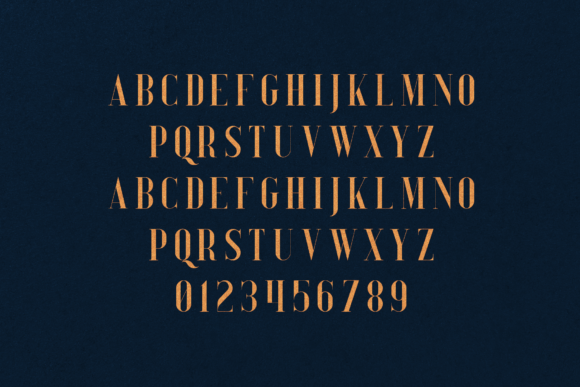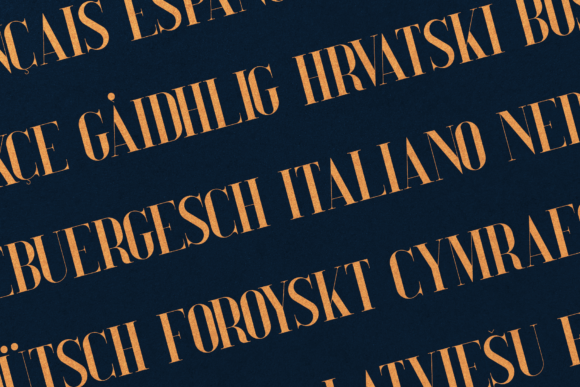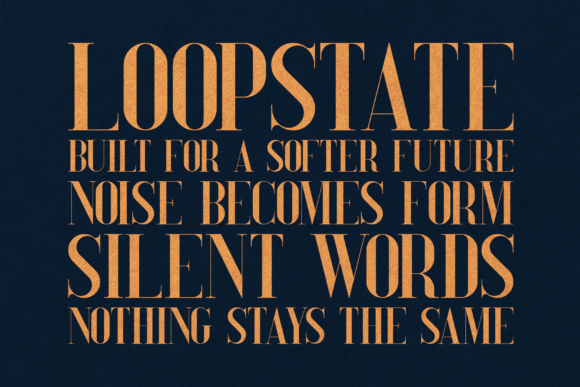
Introduction to Daylight Dreams Font
You’ve spent hours perfecting your design, from selecting the perfect color palette to crafting the ideal layout. But have you ever stopped to think about the one element that can truly elevate your creative project – the font? For designers, the right font can make all the difference between a good design and a great one.
Enter the Daylight Dreams Font, a sophisticated modern serif typeface designed to add elegance, clarity, and sophistication to any design. Whether you’re working on a high-end branding project or a luxury editorial design, this font is sure to impress. With its versatility and high-quality aesthetic, the Daylight Dreams Font is a valuable resource for designers looking to take their creative projects to the next level.
Key Features of Daylight Dreams Font
- High-quality, professional font perfect for creative projects requiring a unique design resource.
- Comes in a single weight, making it easy to use across different design projects.
- Designed with a high resolution of 300 DPI, ensuring crisp and clear typography.
- Perfect for use in a variety of creative projects, including digital art, graphic design, and web design.
Honest Review: Daylight Dreams Font
I recently came across the Daylight Dreams Font and decided to give it a try for my latest creative project. The first thing that caught my attention was the beautiful design and the transparent background, which made it perfect for overlaying on images.
Here are some aspects that worked well for me: ✨
- Unique and elegant design that adds a touch of sophistication to any project.
- High-quality font that renders well even at small sizes.
- Works well with both light and dark backgrounds, making it versatile for different design projects.
However, I did encounter a few limitations: ⚠️
- The font family is relatively small, which might limit its usability for large-scale designs.
- No bold or italic versions available, which might not be ideal for certain creative projects.
Overall, I’m quite impressed with the Daylight Dreams Font and would definitely recommend it to designers looking for a high-quality, free design resource for their creative projects.
Tips for Getting the Most Out of Daylight Dreams Font
Use the font in conjunction with a transparent background to create a seamless design. Experiment with different font sizes and styles to add visual interest to your project. The high-quality design of the font makes it perfect for both digital and print projects.
Daylight Dreams Font is perfect for creative projects such as blog posts, social media graphics, and business cards. Its high-quality design and transparent background make it ideal for use in both digital and print projects.